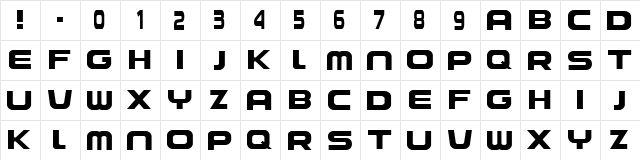
Under Armour University Regular
Design Context for Under Armour University Typeface
Under Armour University takes a measured approach to typography — its balanced proportions and neutral character make it a reliable workhorse for both digital and print work.